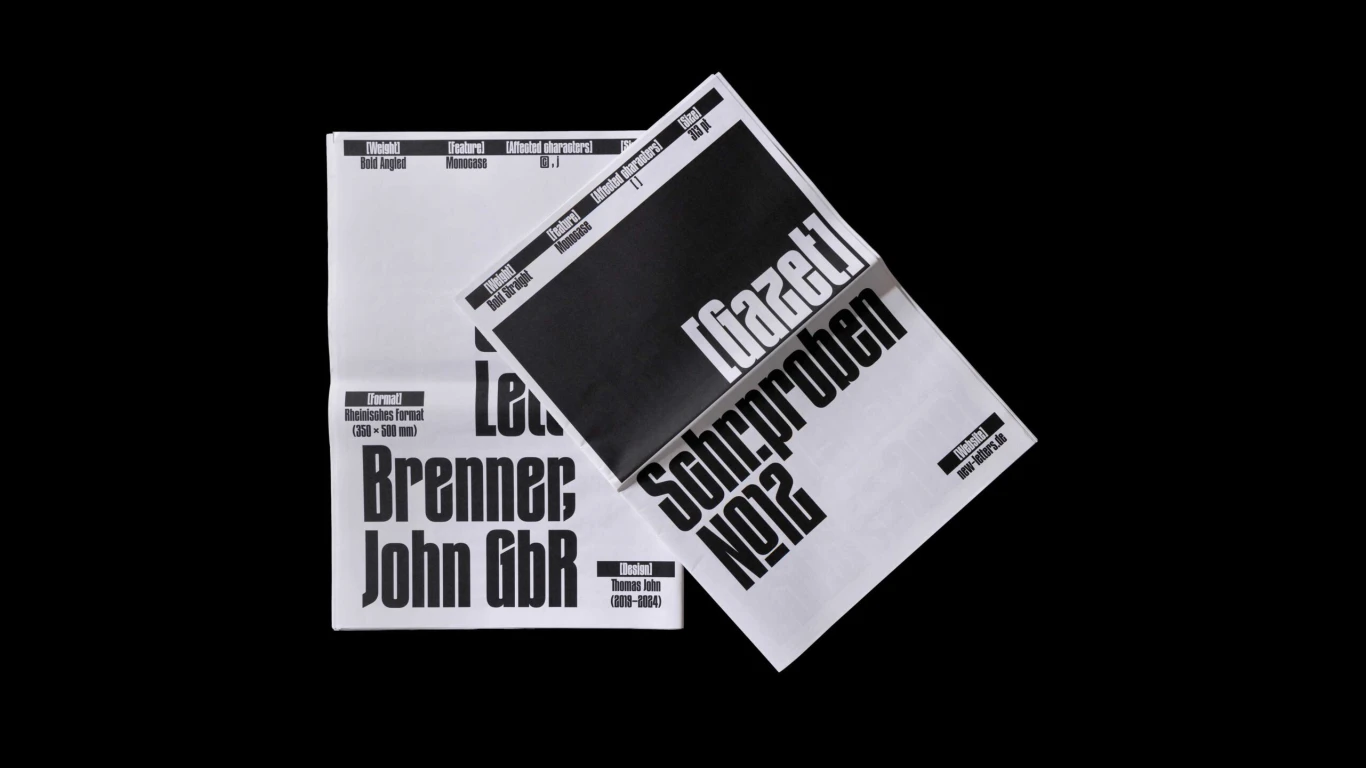
New Letters
Germany
2015
New Letters is a German type foundry and design studio, founded in 2015 by Armin Brenner and Markus John. Specializing in typography and graphic design, the studio bridges cultural and commercial projects, with a focus on art, fashion, and both digital and print media. Notable typefaces like Mériva, Anaïs, and Freya showcase their blend of contemporary design and distinctive character, while their clients, including Robert Radziejewski and Modem Studio, reflect their expertise in the cultural and fashion sectors.